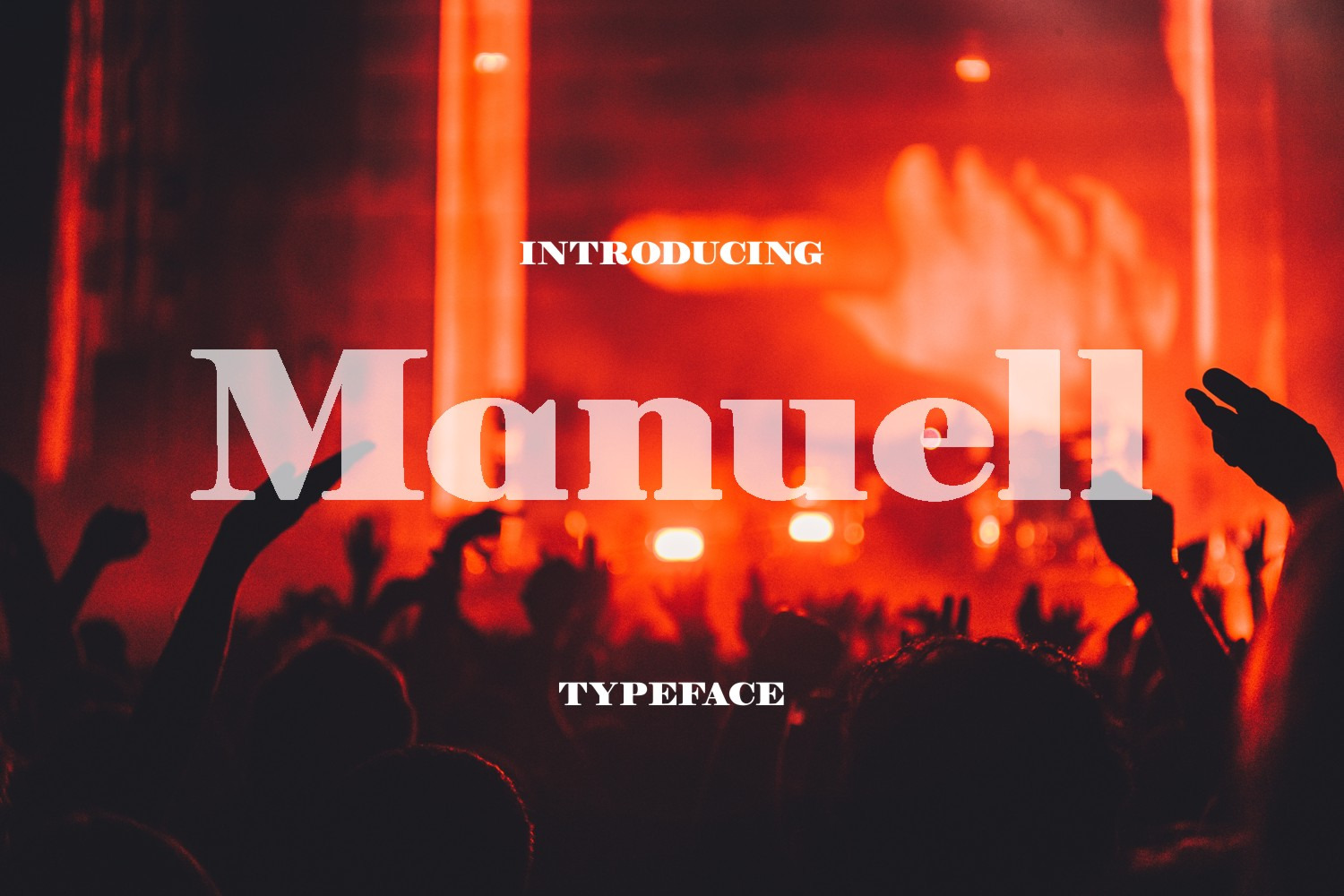
Manuell Font
Introducing Manuell hand crafted serif typeface.
Multi purpose use as it has upper cases, lower cases, numbers, punctuations and currency symbols.
Great for titling, signage, logo, poster, flyers or t-shirts design, headlines, and more!